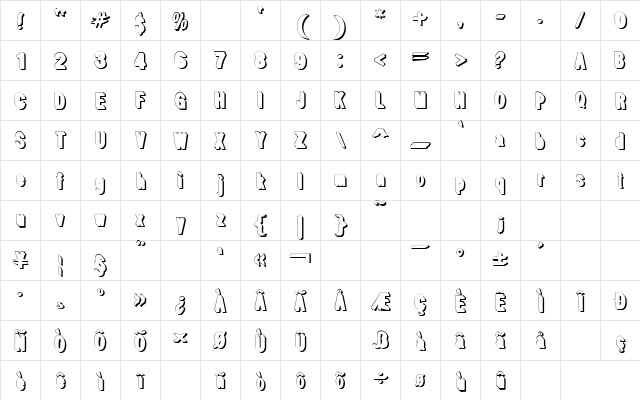
White Free Regular Free Font
White Free Regular
Foundry: Paulo W, Intellecta Design
Design Context for White Free
White Free is a composed and adaptable typeface that performs quietly and consistently across a wide range of design contexts.